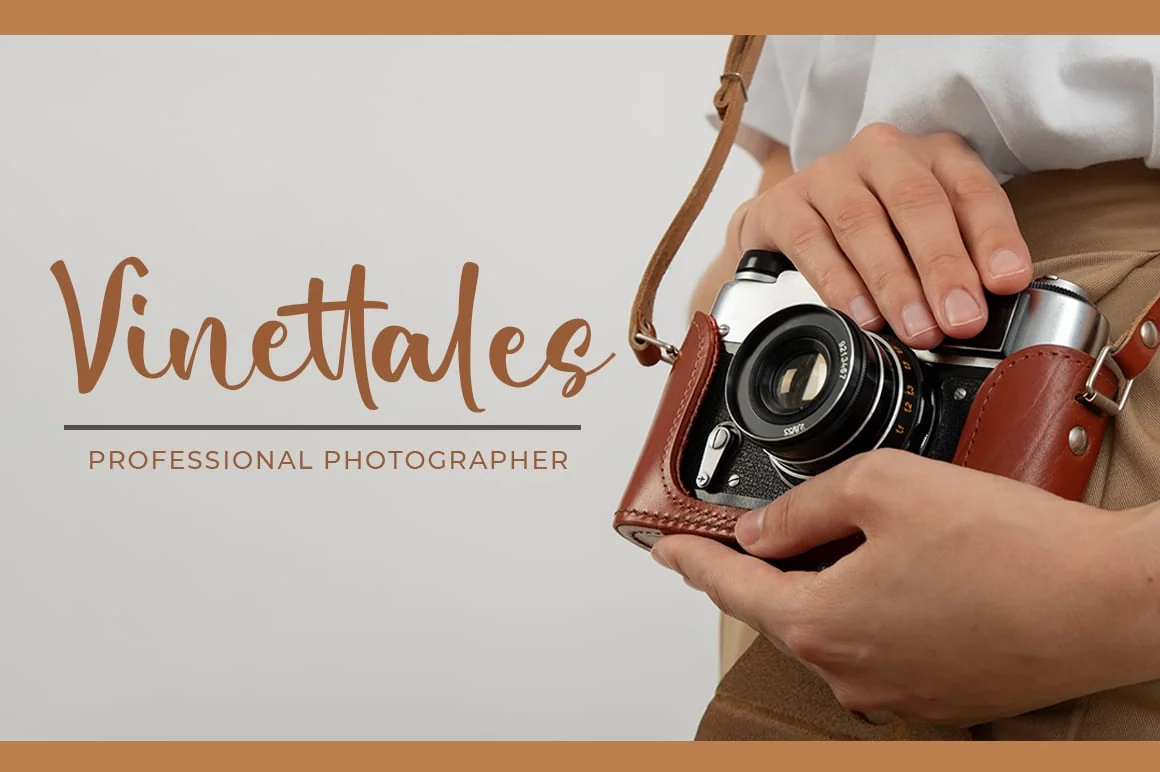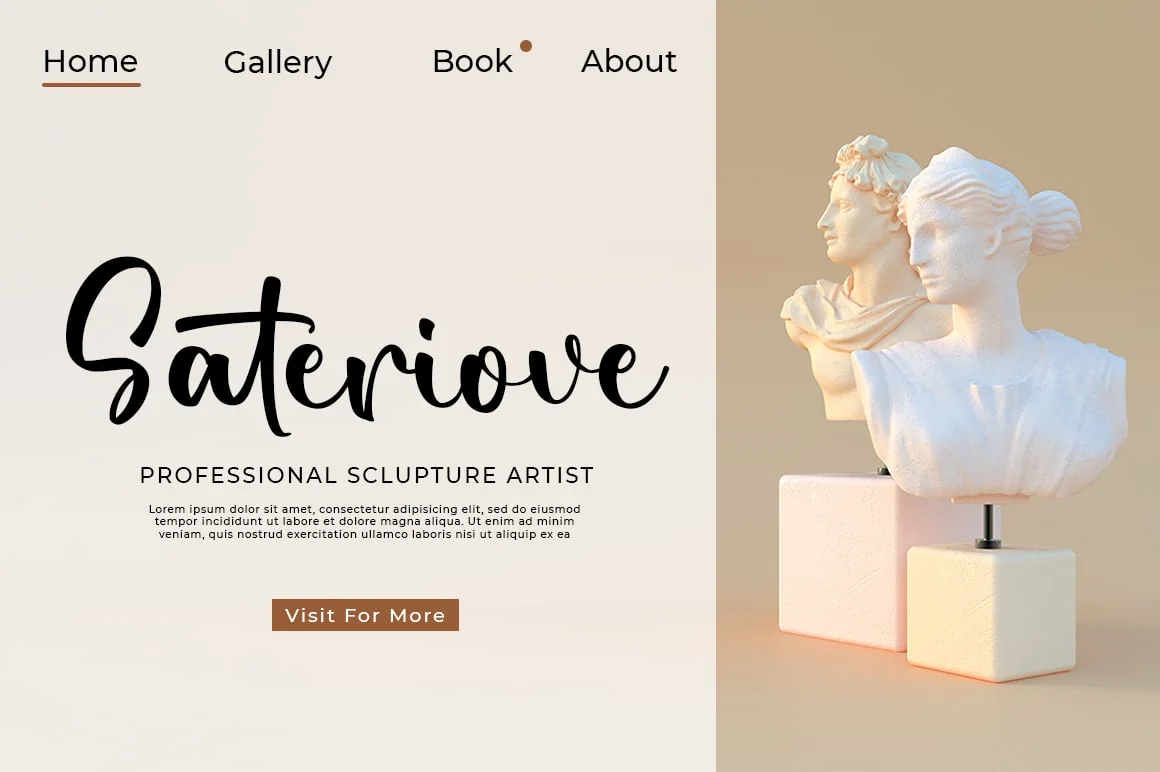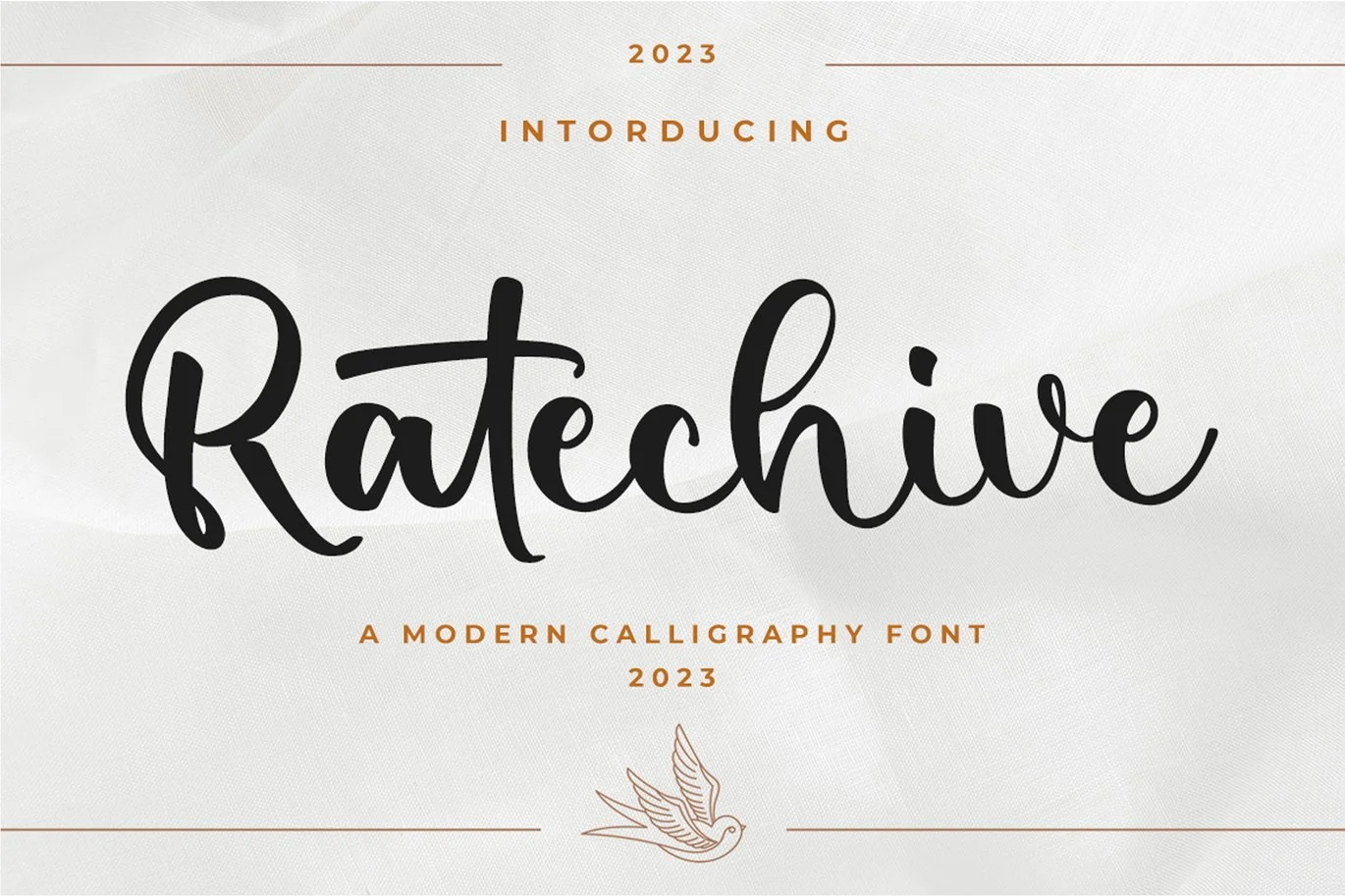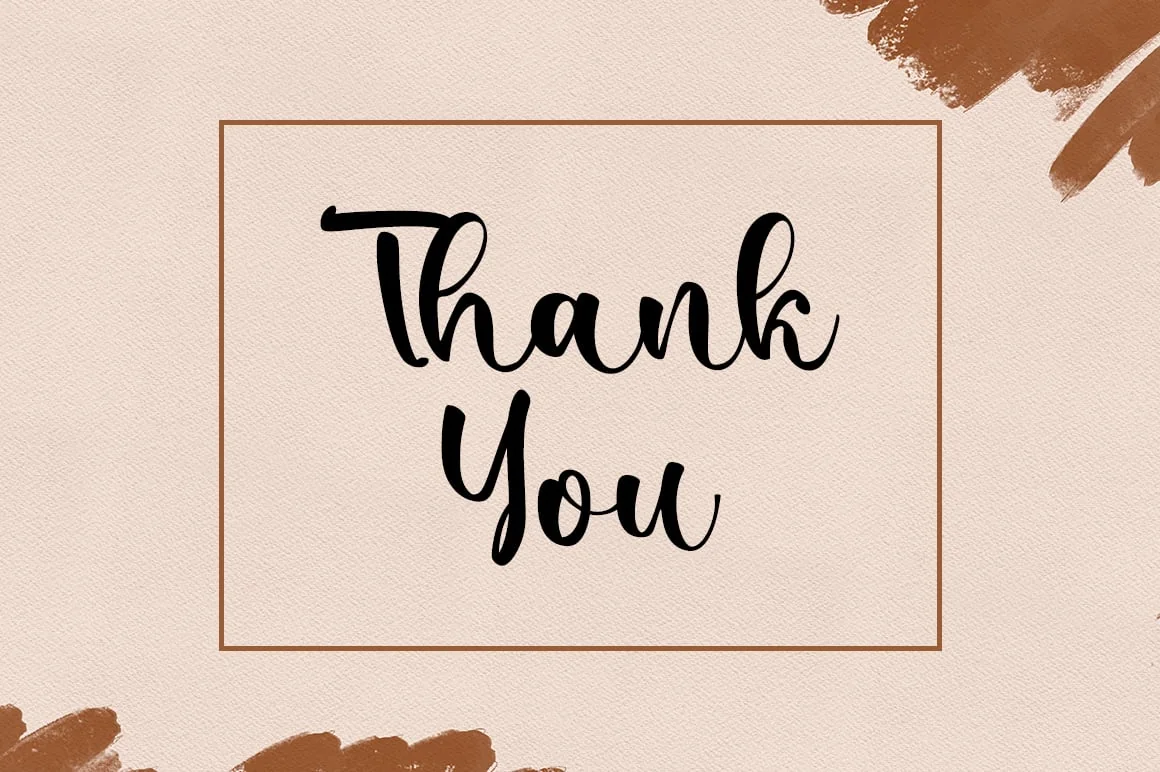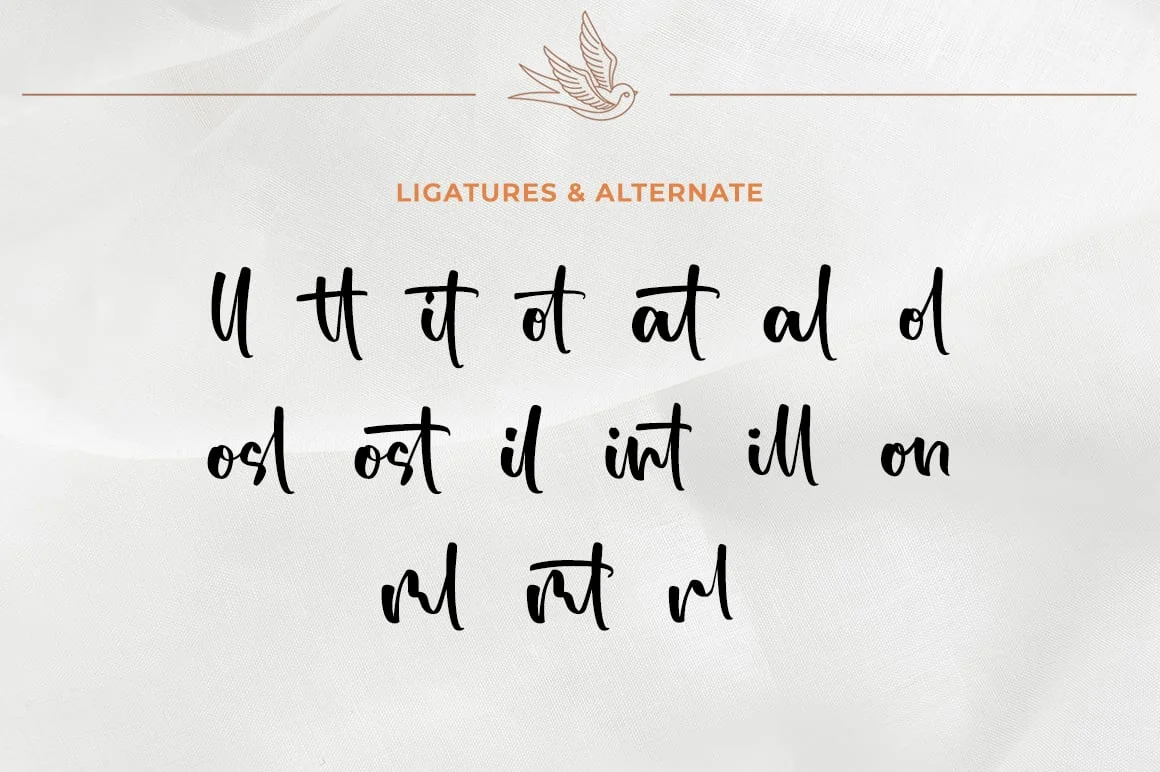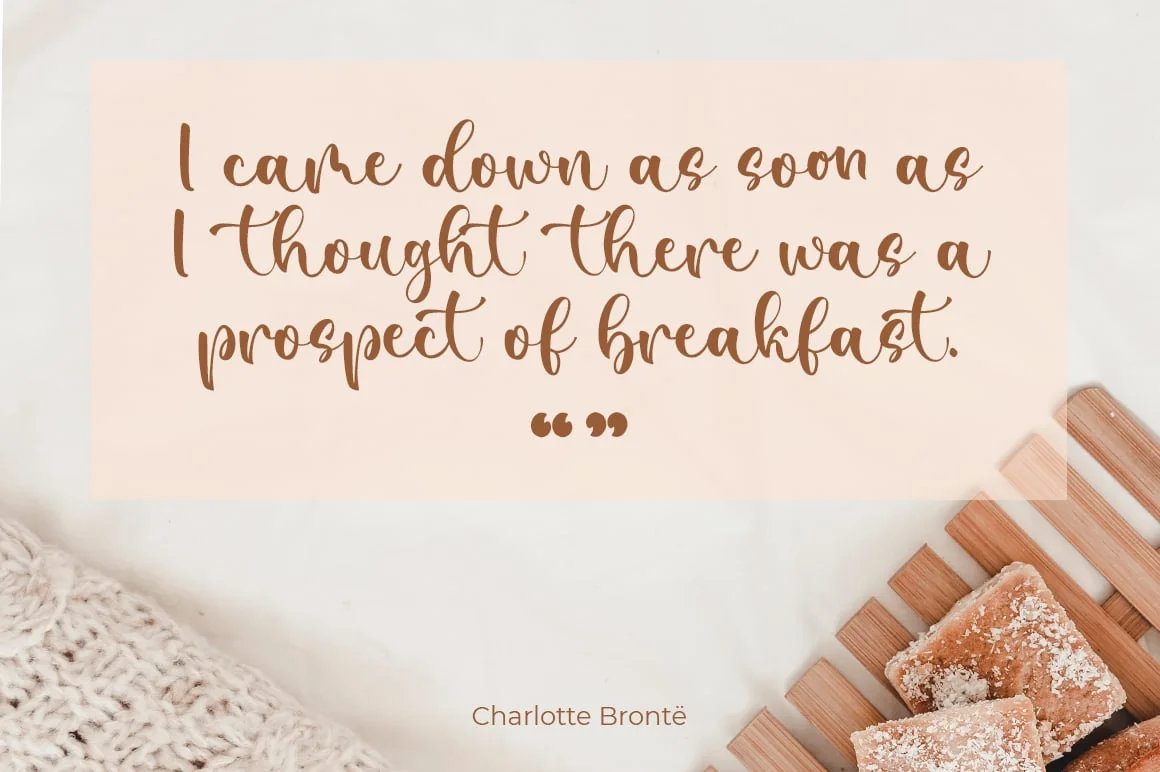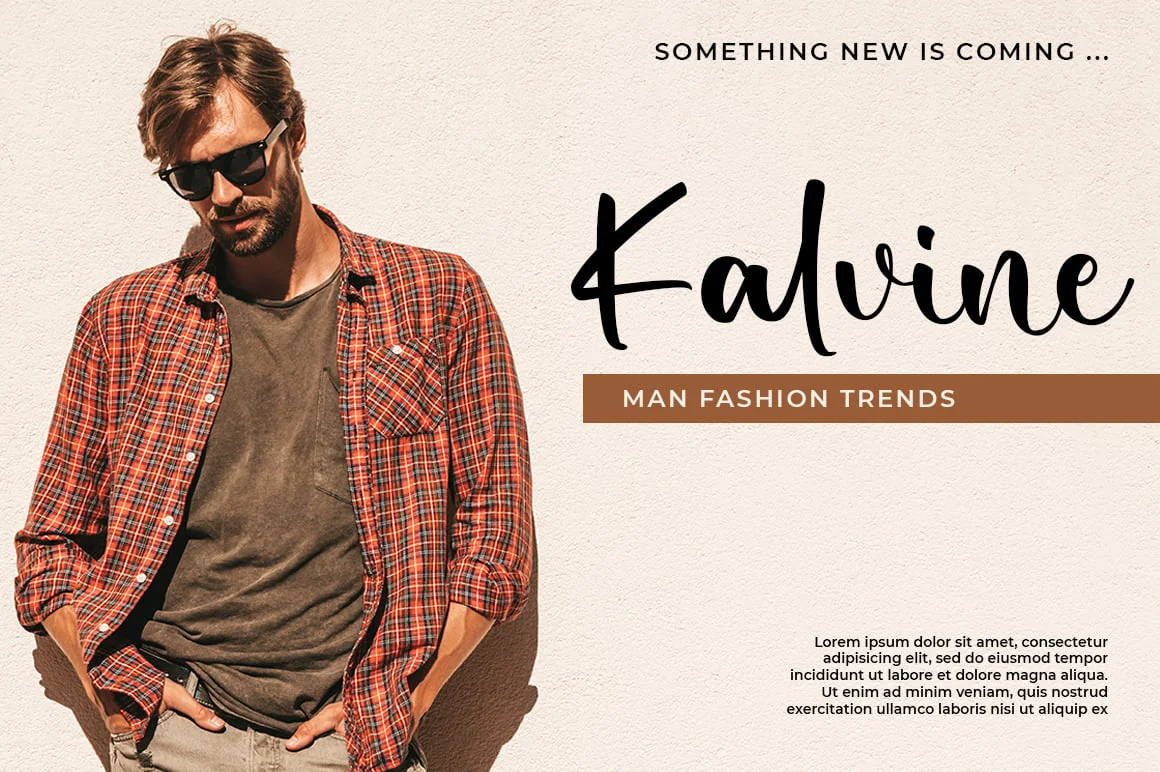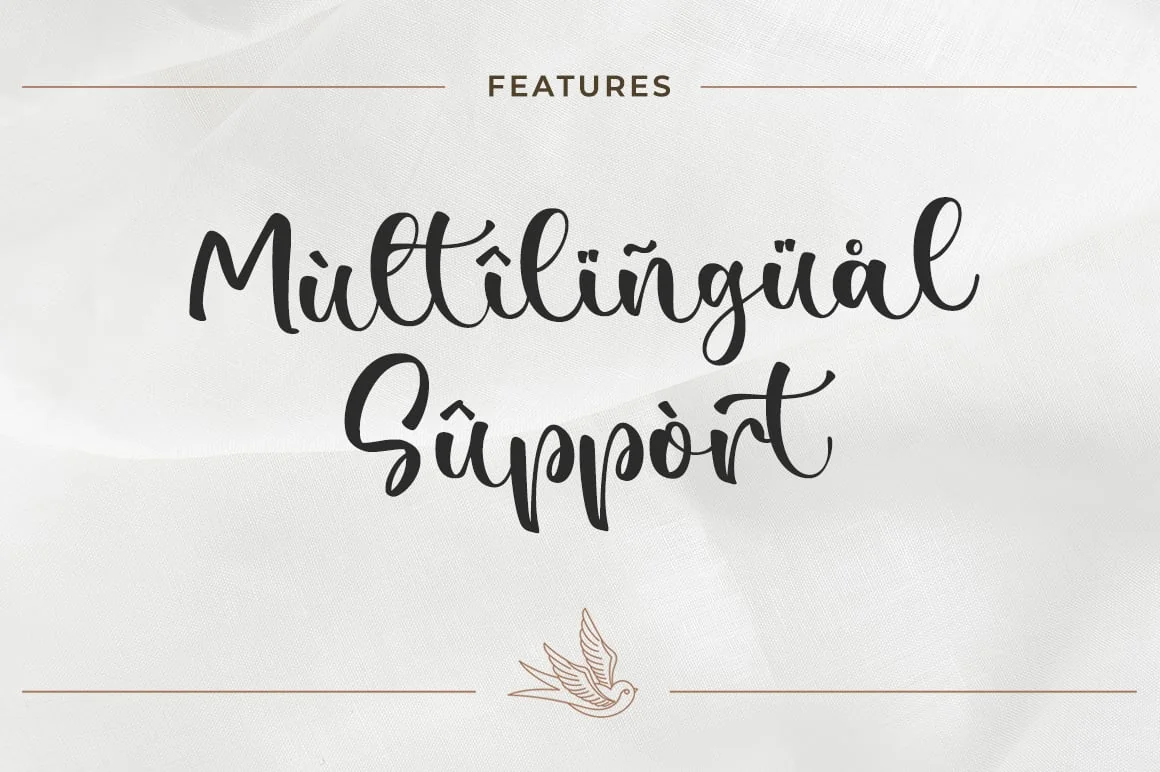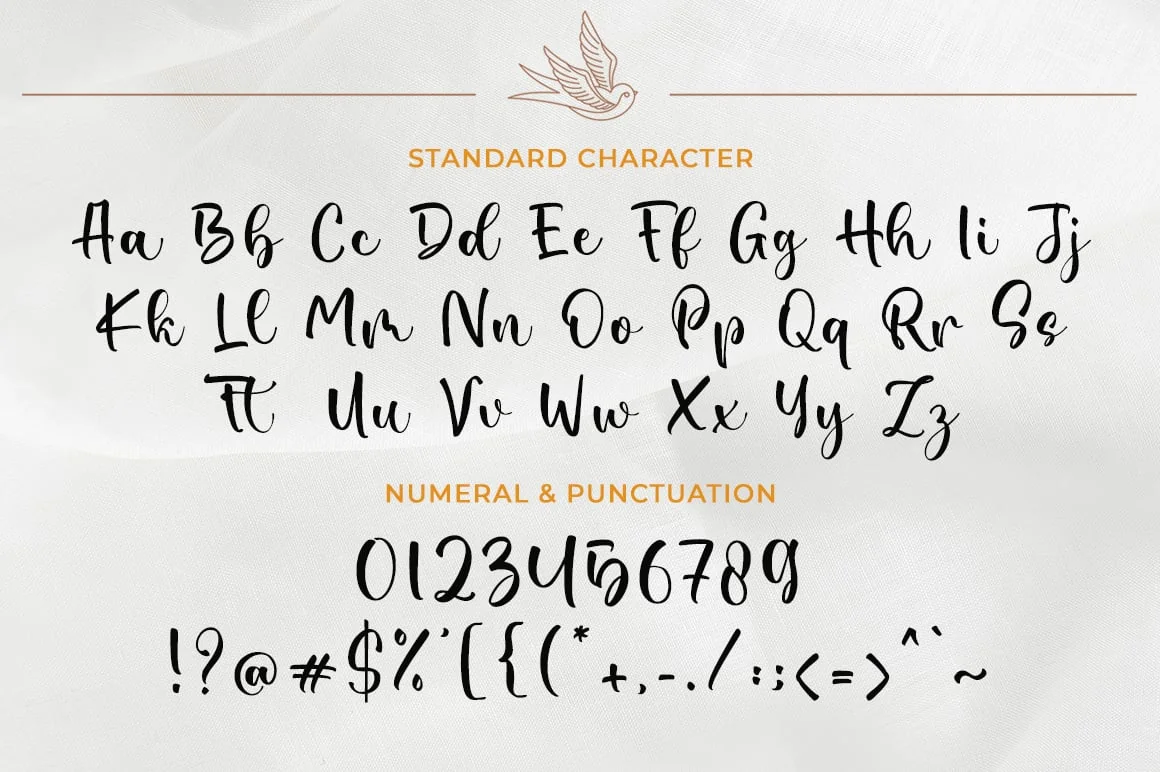
Ratechive – Wedding Font
Ratechive is a gorgeous and bold handwritten font, crafted to give your headlines and logotype projects a stylish touch. This font reads as strong, confident, and dynamic and can add tons of nostalgic character to your designs.
- Ligatures, Swash, Alternates
- Letters, Numbers, punctuation